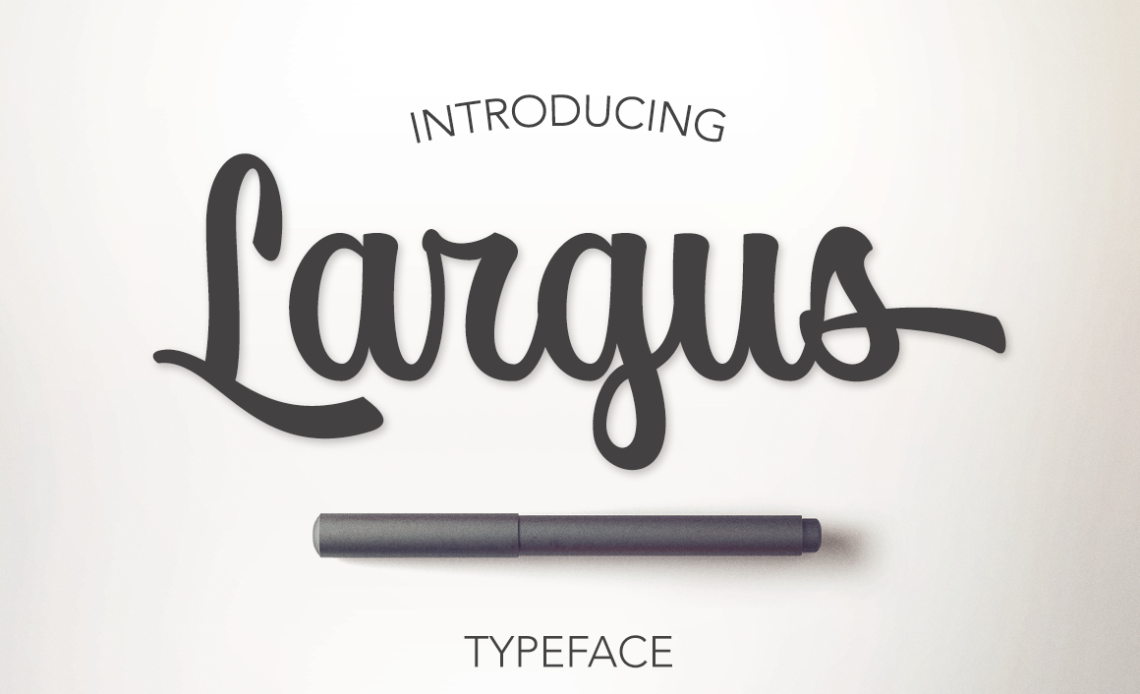
Introducing Largus Font: The Gateway to Stunning, Retro-Styled Designs
In the vast world of typography, Largus Font stands out as a beacon of creativity and visual appeal. This captivating script font, meticulously crafted by the talented Pasha Larin, offers a unique blend of vintage charm and modern flair.
Largus Font possesses an alluring personality that exudes confidence and sophistication. Its bold strokes and thick lines create a striking presence, while its carefully crafted curves lend an air of elegance and charm.
Are you seeking to infuse your designs with a touch of nostalgia? Do you yearn for a font that evokes the romance and allure of bygone eras? Look no further than Largus Font. Its retro style will transport your designs to a world of vintage allure, where every letter tells a story.
Unleash your creativity and let Largus Font guide you through an artistic journey. Its versatility knows no bounds, whether you're designing logos, posters, branding materials, or social media graphics. With Largus Font, the possibilities are endless.
Immerse yourself in the world of retro aesthetics. Largus Font's painterly vibe will add a touch of warmth and authenticity to your designs. Its thick, bold strokes evoke the质感 of brushstrokes, creating a visual masterpiece that captures the essence of traditional artistry.
With Largus Font, you can effortlessly create designs that resonate with your audience. Its unique character will set your work apart, leaving a lasting impression that lingers in the minds of your viewers.
Don't settle for ordinary fonts that blend into the background. Choose Largus Font and watch as your designs come alive with its captivating charm. Embrace the retro revolution and let Largus Font guide you towards design greatness.